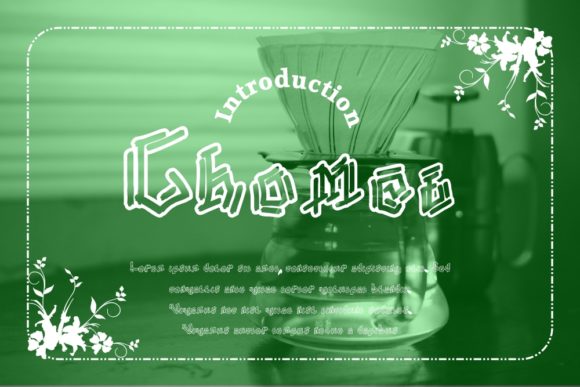
Prepare to be captivated by Chomet, the display font that effortlessly combines the charm of a brush pen with the precision of a pencil. Its strokes exude a captivating blend of allure and authenticity that will leave an unforgettable impression.
Chomet's elegant persona empowers it to seamlessly blend into any backdrop, whether it's a vibrant and bustling scene or a minimalist canvas. Its versatility knows no bounds, captivating attention as a solitary headline or gracefully complementing more intricate visual compositions.
With Chomet as your design companion, prepare to embark on a journey of visual storytelling that effortlessly captures the hearts of your audience. Its ability to evoke emotions and convey depth brings your words to life, making them resonate on a profound and unforgettable level.
Chomet's strength lies in its ability to enhance readability, rendering even the most complex texts with remarkable clarity and precision. Its crisp lines and carefully crafted curves guide the reader's eye effortlessly through your content, ensuring that your message is absorbed with ease and delight.
Whether you're crafting captivating headlines, engaging marketing materials, or designing thought-provoking posters, Chomet will elevate your creations to new heights of visual splendor. Its unique character and versatility will empower you to express your ideas with unparalleled creativity and impact, leaving a lasting impression on all who encounter your work.
Indulge in the artistry of Chomet, the display font that transforms words into works of art. Experience the power of effortless readability, captivating aesthetics, and profound emotional resonance. Embrace Chomet today and witness the transformative impact it brings to your design endeavors.